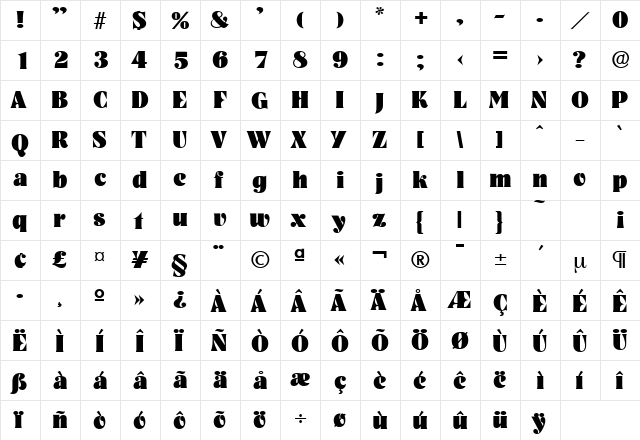
Nashville-Serial-Heavy Regular
Design Context for Nashville-Serial-Heavy Typeface
Nashville-Serial-Heavy is a composed and adaptable typeface that performs quietly and consistently across a wide range of design contexts.